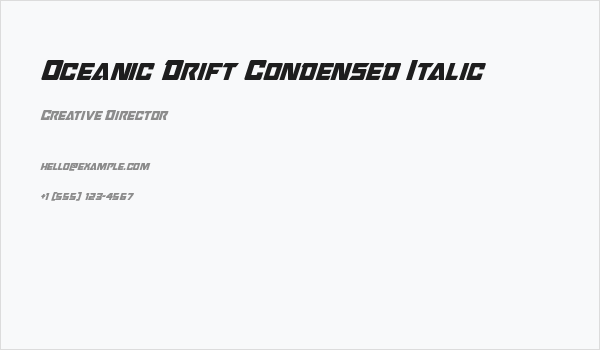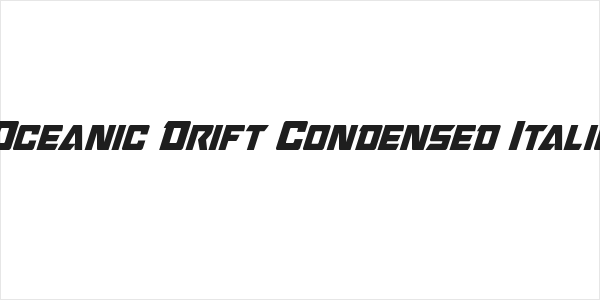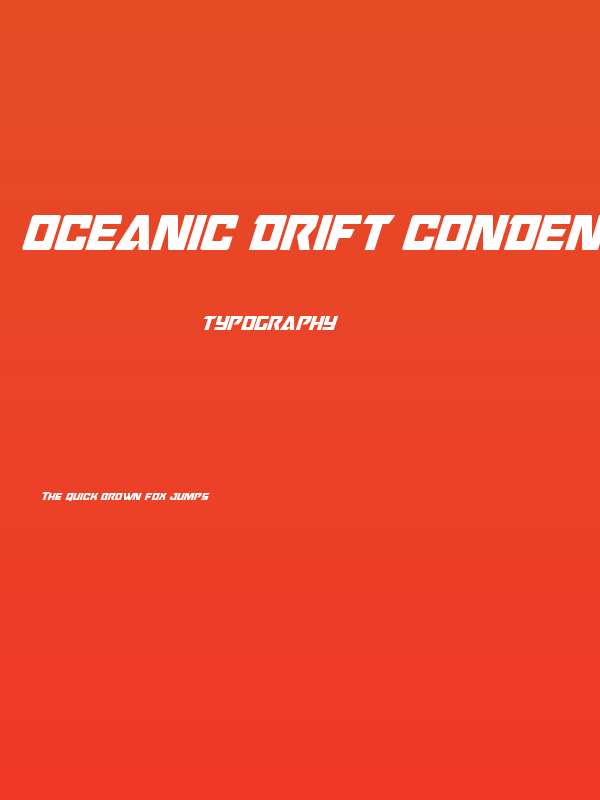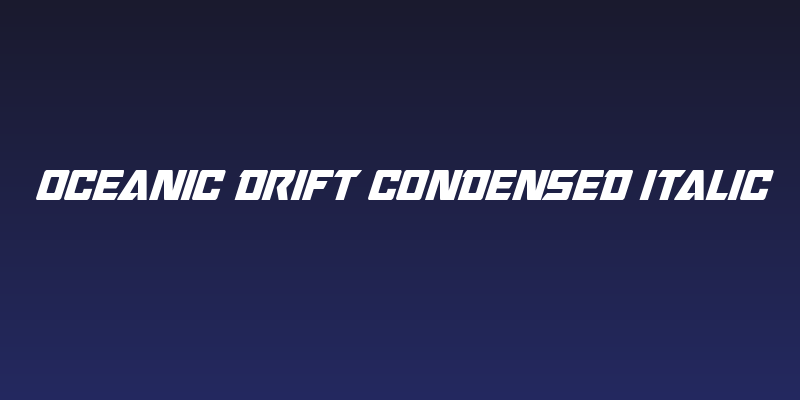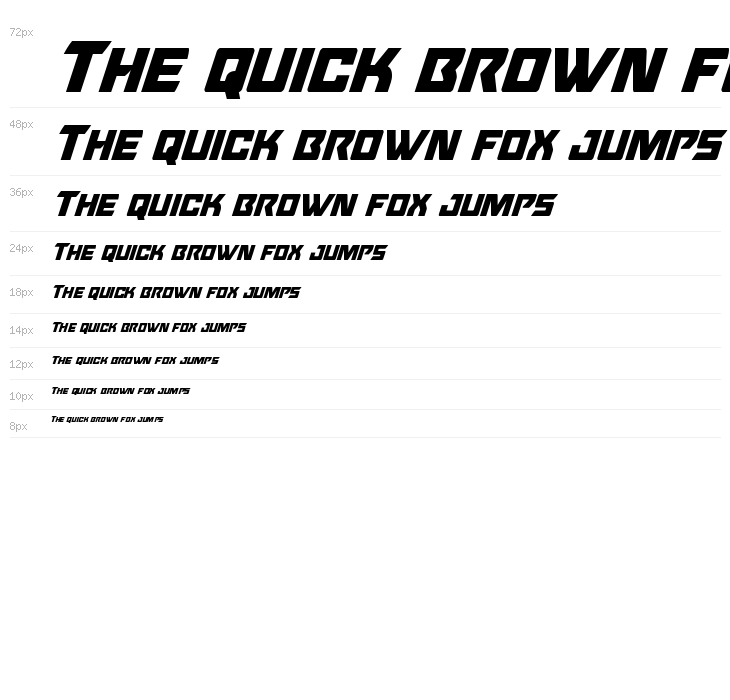
Oceanic Drift Condensed Italic Font
Oceanic Drift Condensed Italic Description
This font features a bold and dynamic design with a condensed and italicized style. The characters are sharply angled, giving a sense of movement and energy. The uppercase and lowercase letters maintain a consistent slant, enhancing the italic effect. The numbers and special characters are designed to match the boldness and angularity of the alphabet, ensuring a cohesive look across all elements. This font's strong presence makes it ideal for attention-grabbing applications.
| Proposed Projects | Ideal for sports branding, dynamic posters, video game titles, and action-themed designs. |